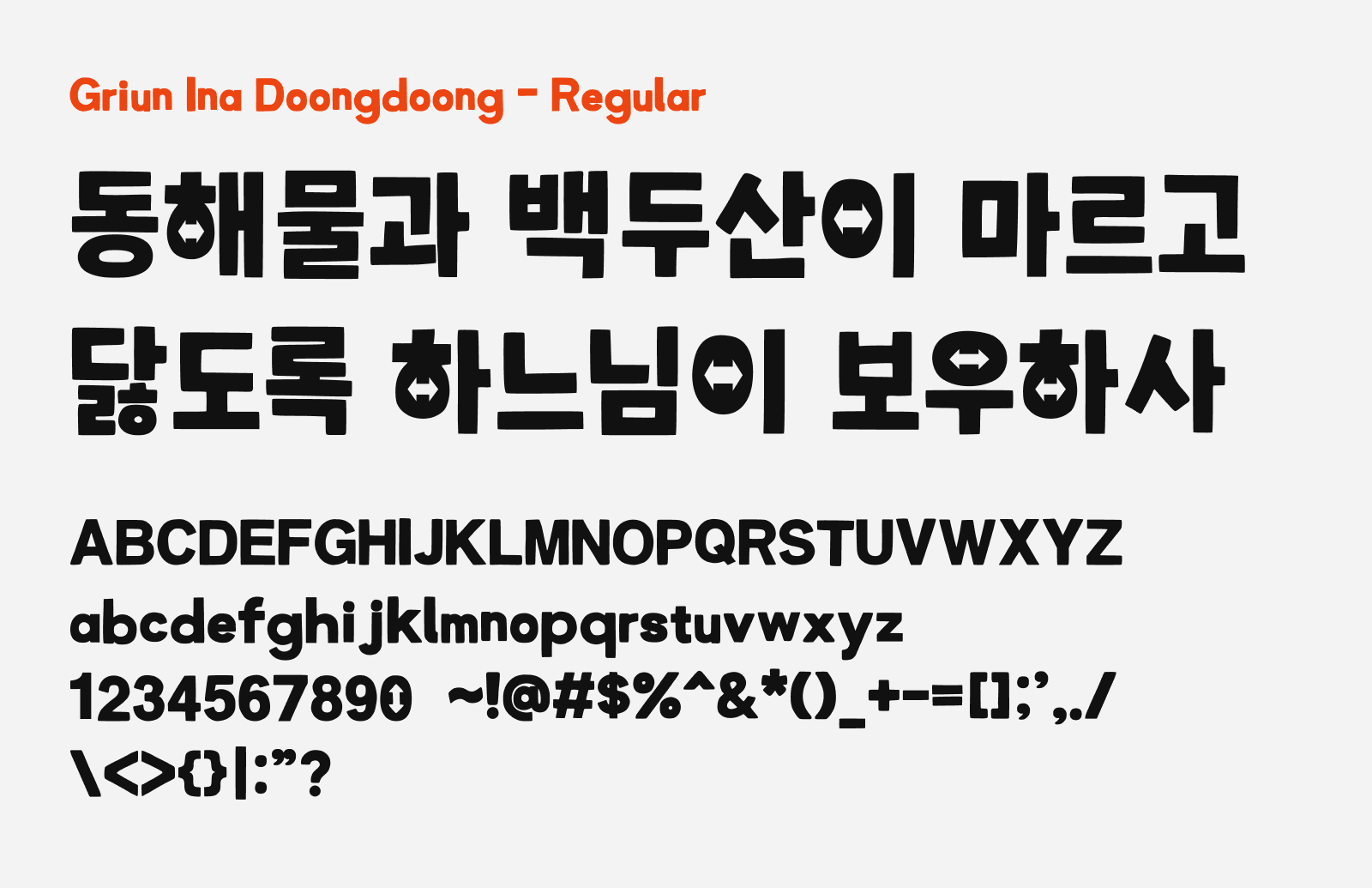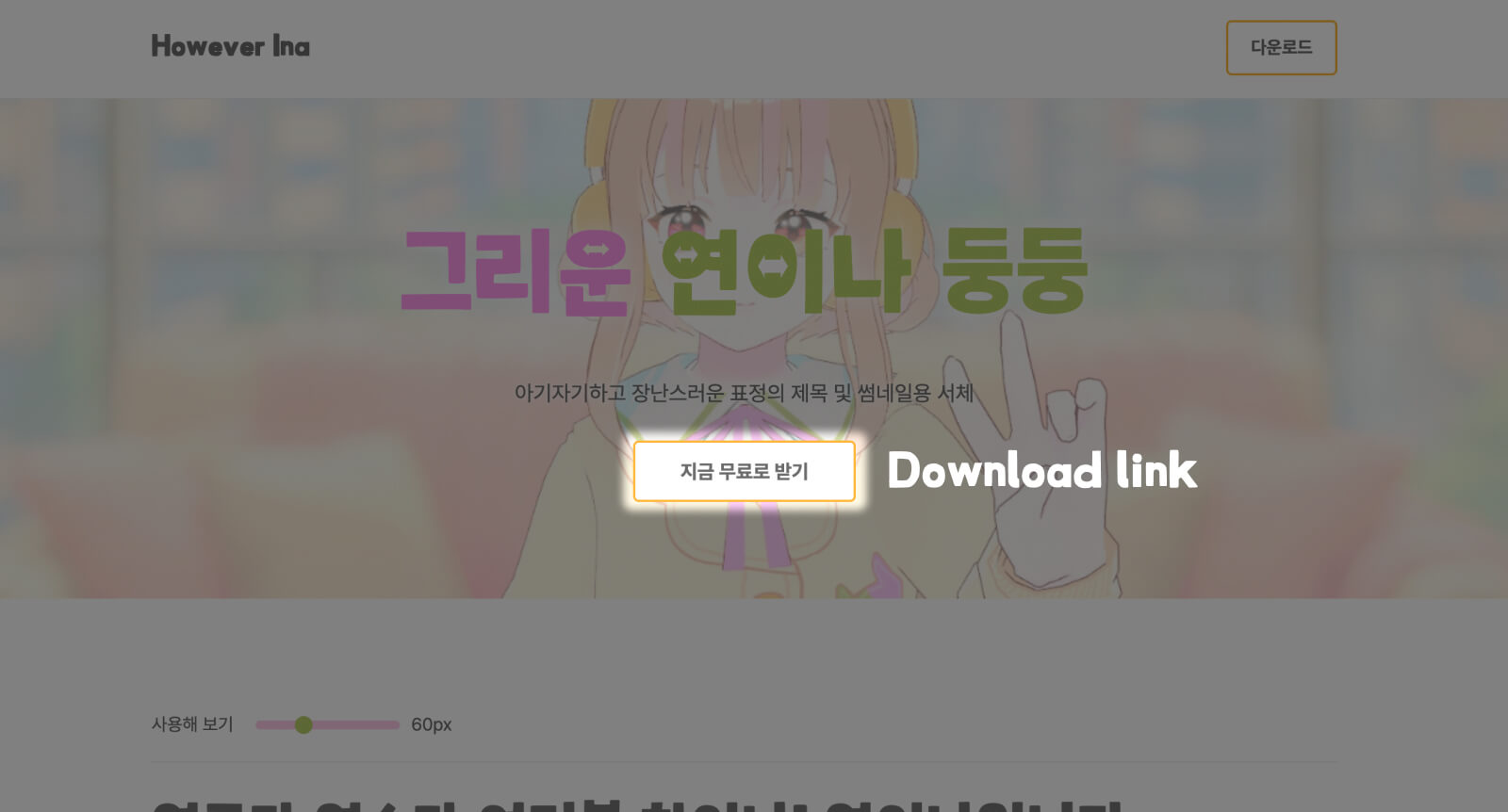
Griun Ina Doongdoong (그리운 연이나 둥둥) is a chunky, playful display font with thick strokes and a personality to match. This font was created out of a need for a font to be used on video thumbnails and subtitles by a Korean Youtuber. After searching for a font that she could use it for free without worrying for licensing, in the end she was thinking: why not I create one for myself. With the font creation tool Griun, Griun Ina Doongdoong is born.
The name draws an analogy to a deep, heavy bass line — the kind of font that fills the frame and reads instantly, even as a small thumbnail in a crowded YouTube grid. It has a slightly cartoonish, handcrafted feel that keeps it warm rather than aggressive. It’s good for titles, channel branding, graphic overlays, and any content that wants a bit of visual energy without going full-aggressive bold. This font covers Korean and basic Latin characters, and it’s free to download and be used on commercial projects.